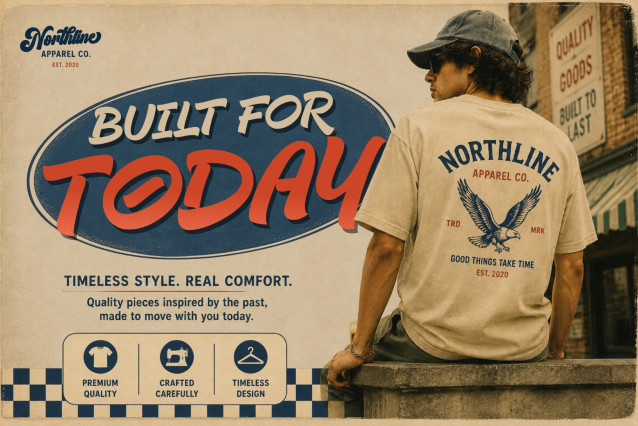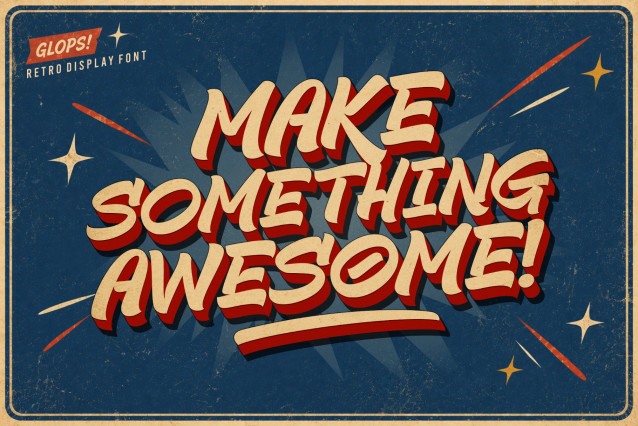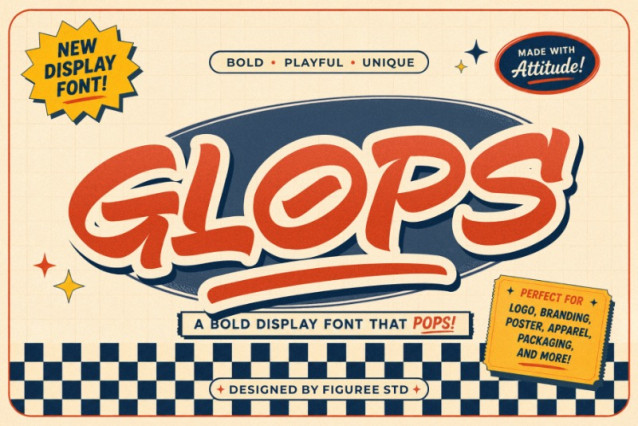
Glops Font
Glops Font is designed to bring nostalgic energy and bold handcrafted character into your creative projects. With expressive brush strokes and authentic retro aesthetics, this retro brush font is perfect for logos, café branding, posters, packaging, signage, and eye-catching headlines.
Inspired by vintage lettering and hand-painted signage, Glops delivers a timeless look while still feeling modern and fresh. Whether you are designing for a coffee shop, music event, creative branding project, or social media campaign, this retro brush font creates instant visual impact.
Retro Brush Font for Bold Logos and Headlines
A strong logo begins with memorable typography. Glops is crafted as a retro brush font that combines rough brush textures with confident letterforms, making every design feel alive and expressive. Its handcrafted style creates a human touch that digital typography often lacks.
The bold brush strokes make this retro brush font ideal for large display applications such as posters, banners, branding, YouTube thumbnails, and café signage. Designers looking for a font with authentic vintage soul will instantly connect with Glops.